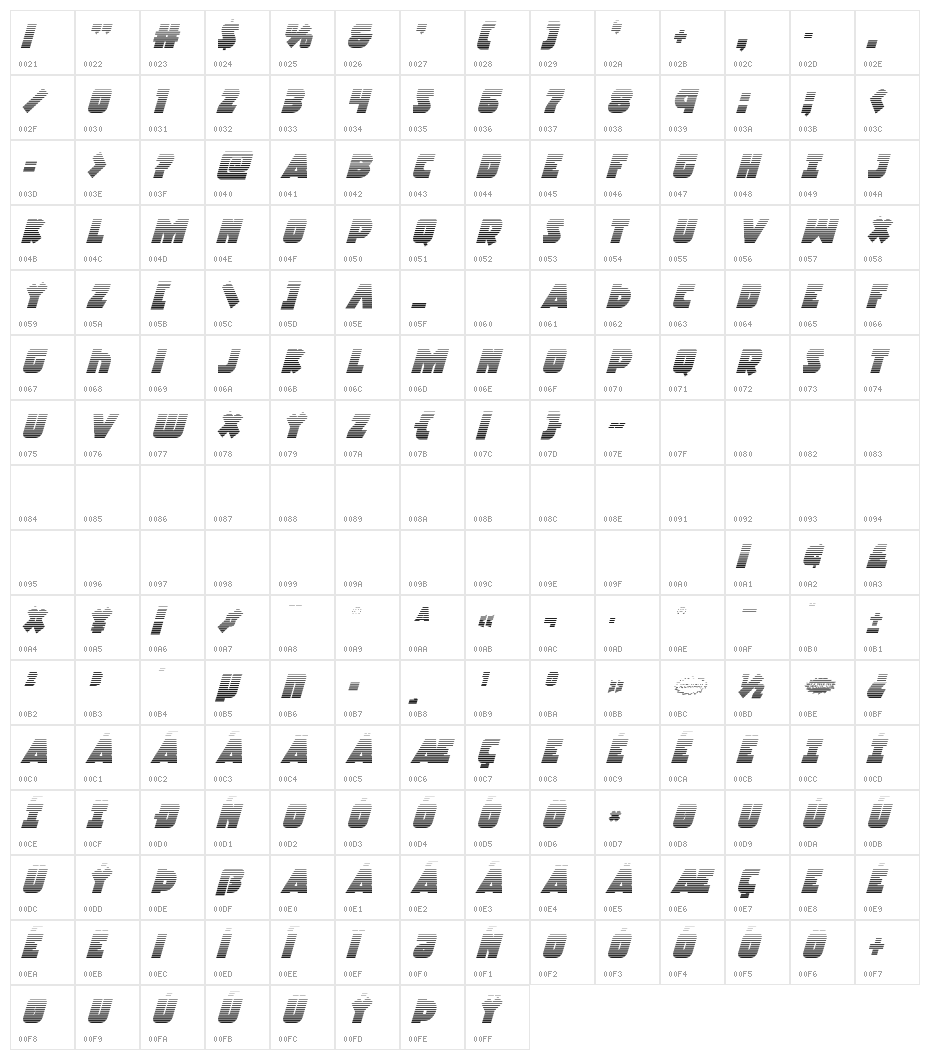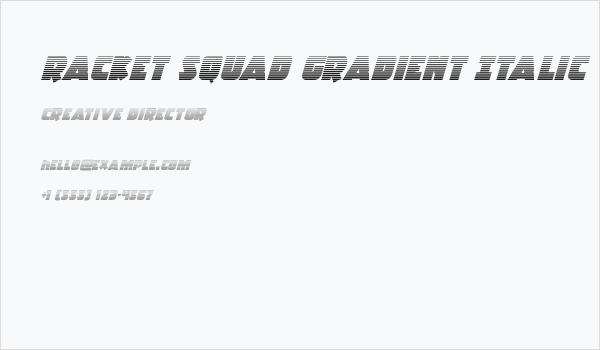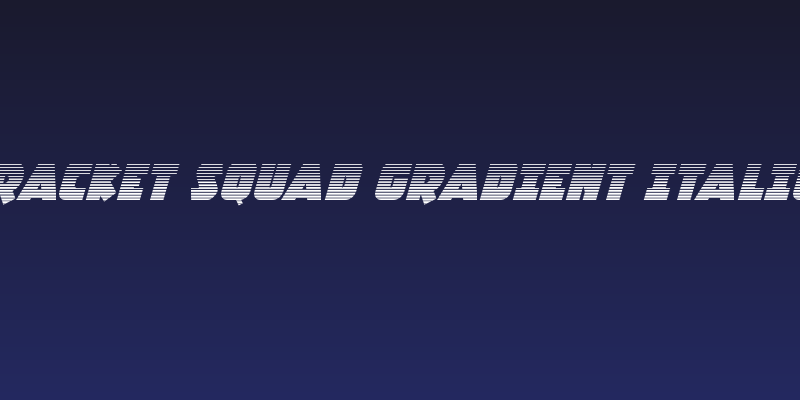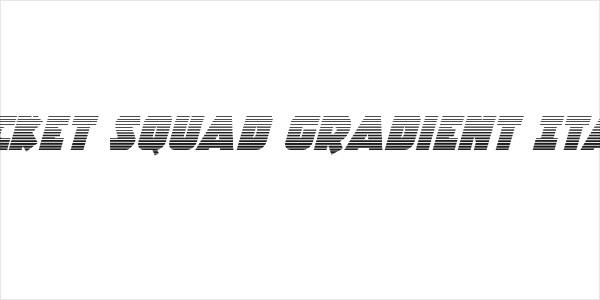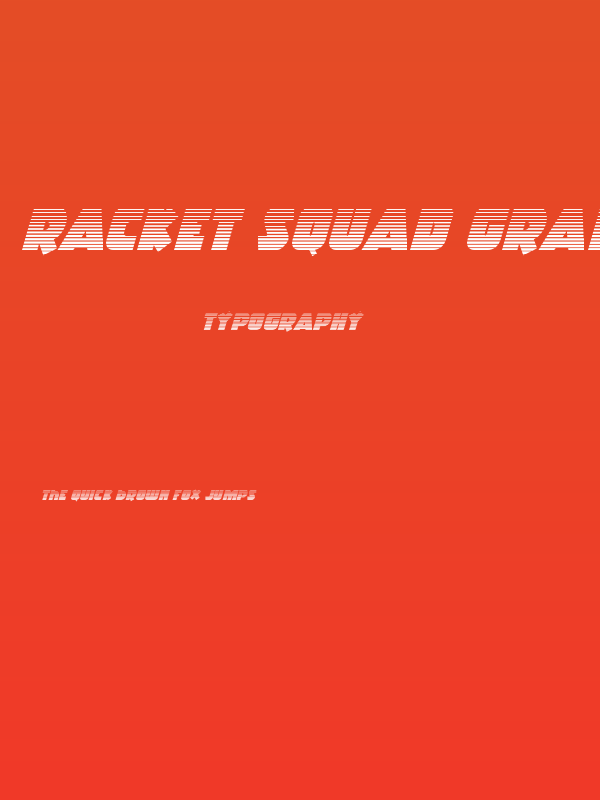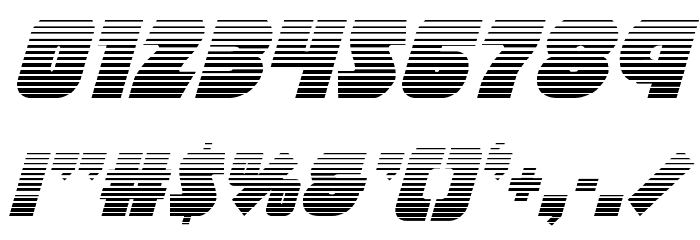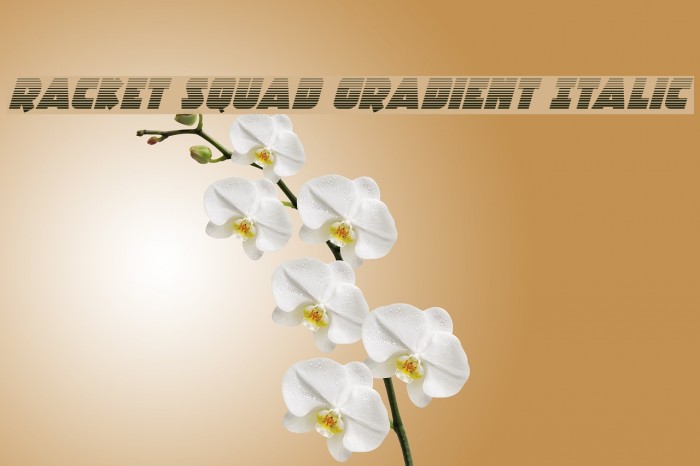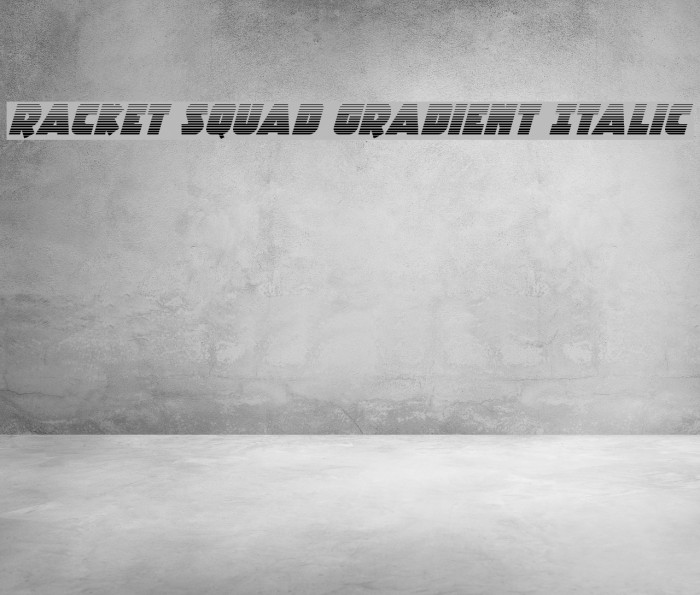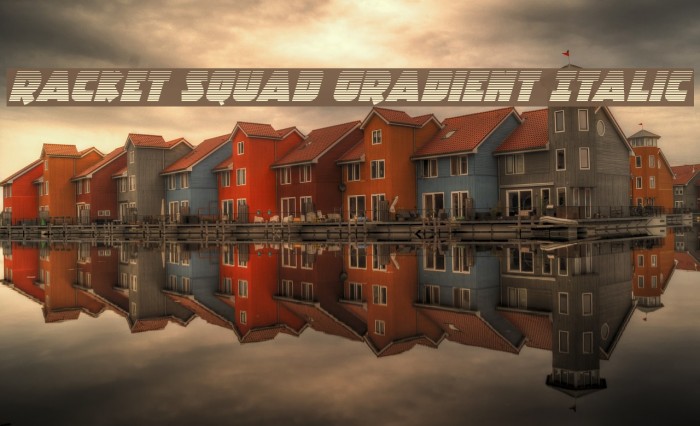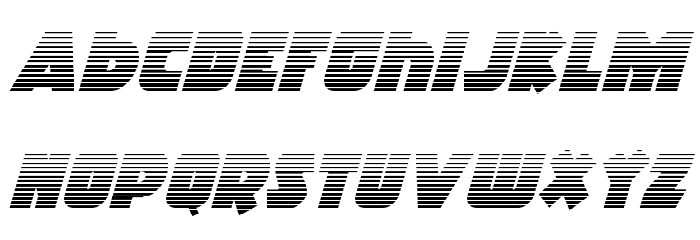
Racket Squad Gradient Italic Font
Racket Squad Gradient Italic Description
This font features a bold, italicized style with a distinct gradient effect created by horizontal lines running through each character. The design is highly decorative, giving a sense of movement and speed. Each letter is crafted with precision, maintaining a consistent slant and boldness across both uppercase and lowercase characters. The numbers and special characters follow the same stylistic approach, ensuring uniformity. The font's unique appearance makes it stand out, ideal for projects that require a dynamic and modern touch.
| Proposed Projects | Ideal for sports branding, dynamic posters, video game titles, and futuristic designs. |